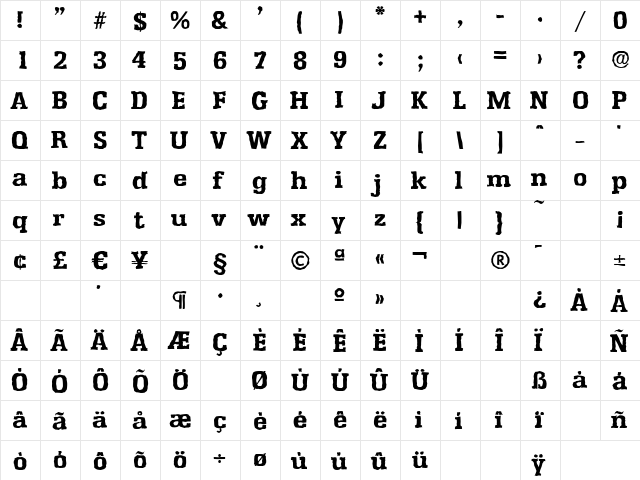
EnschedeAntique-Xbold Regular
Design Context for EnschedeAntique-Xbold Typeface
EnschedeAntique-Xbold wears its vintage influences proudly, with letterforms that recall mid-century signage, classic packaging, and nostalgia-driven design. The heavy weight commands attention and anchors typographic hierarchies.
Font Pairing: Combine EnschedeAntique-Xbold with a simple slab or neutral sans — period-accurate companions reinforce the vintage feel without competing for attention.
Pro Tip: Lean into EnschedeAntique-Xbold's period character by pairing it with aged paper textures, muted colour palettes, and vintage illustration styles.